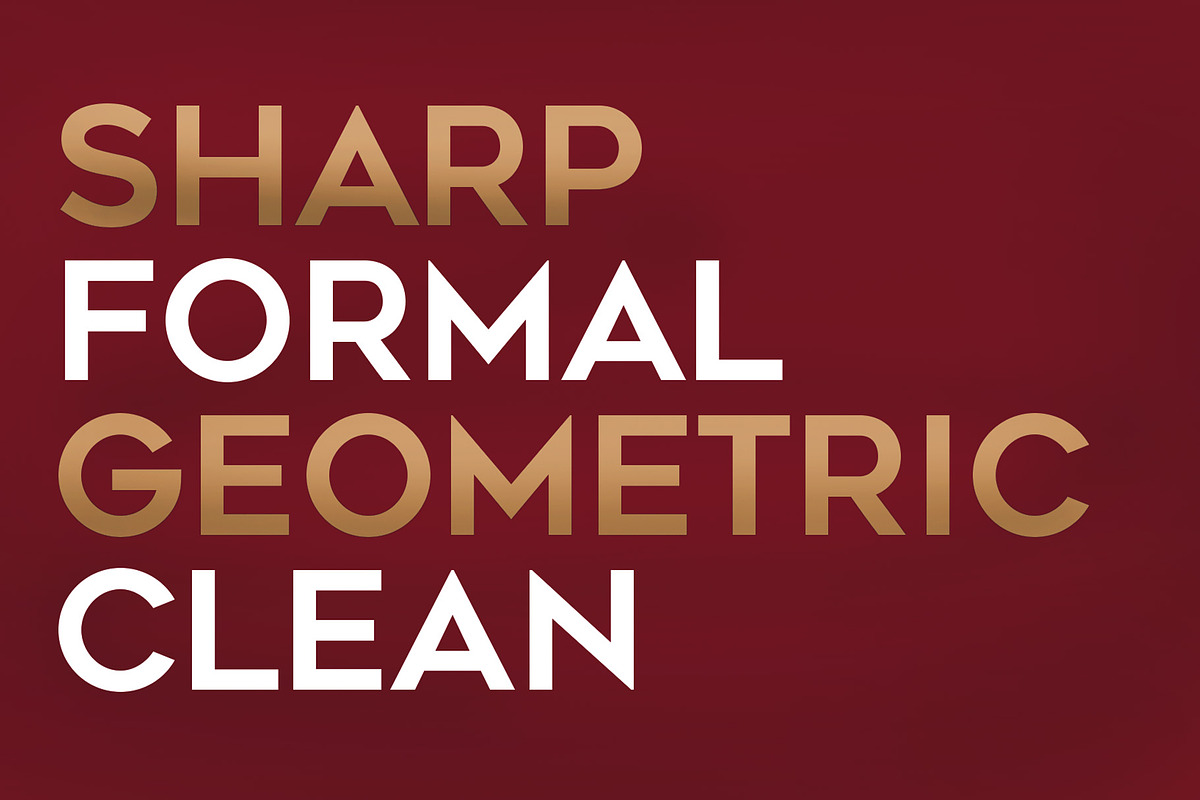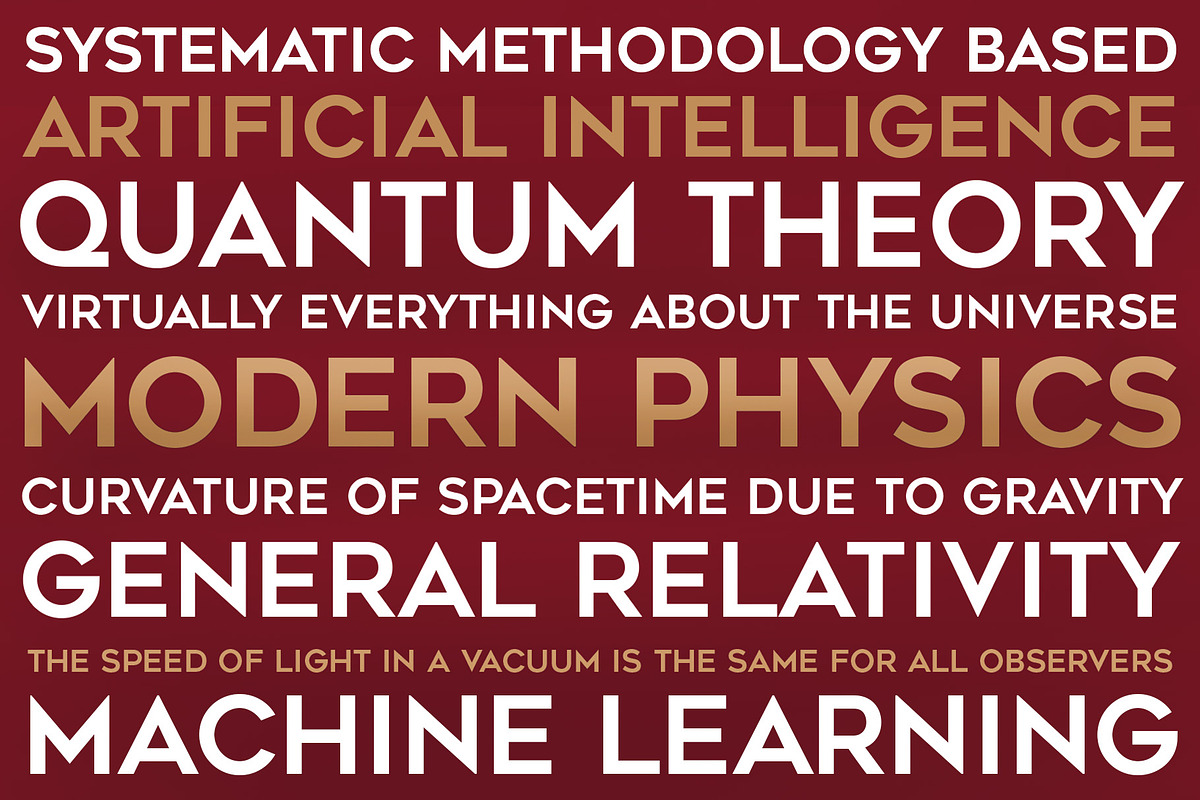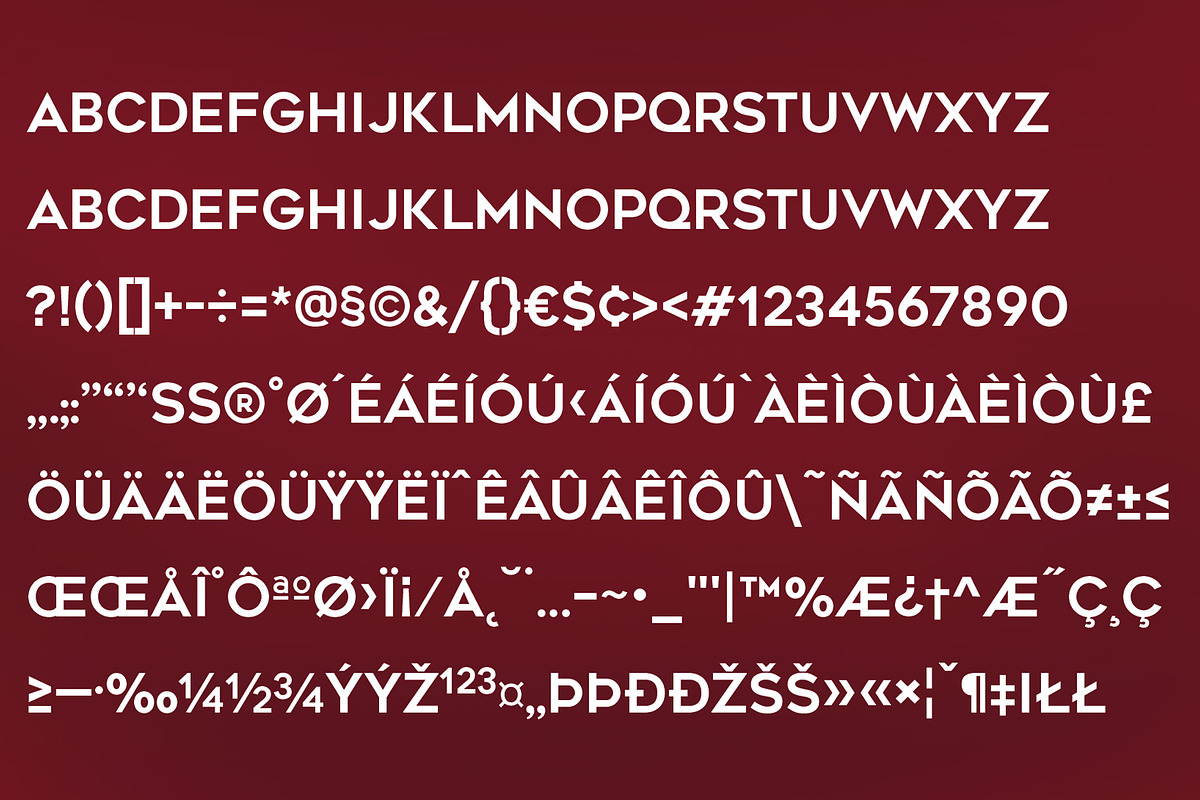
Geometos Font
Geometos is an all caps geometric sans serif typeface. It is a bold and contemporary font particularly suitable for headlines, headings, branding, posters, packaging, titles and logos.